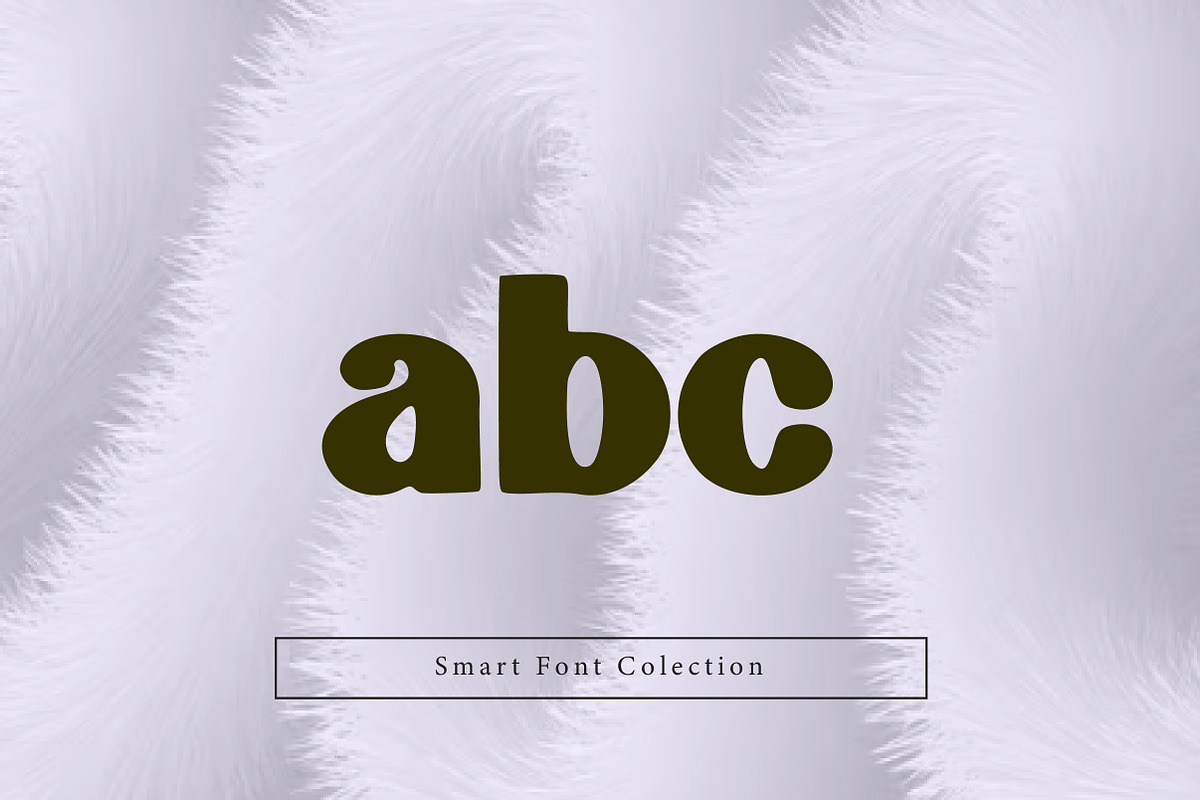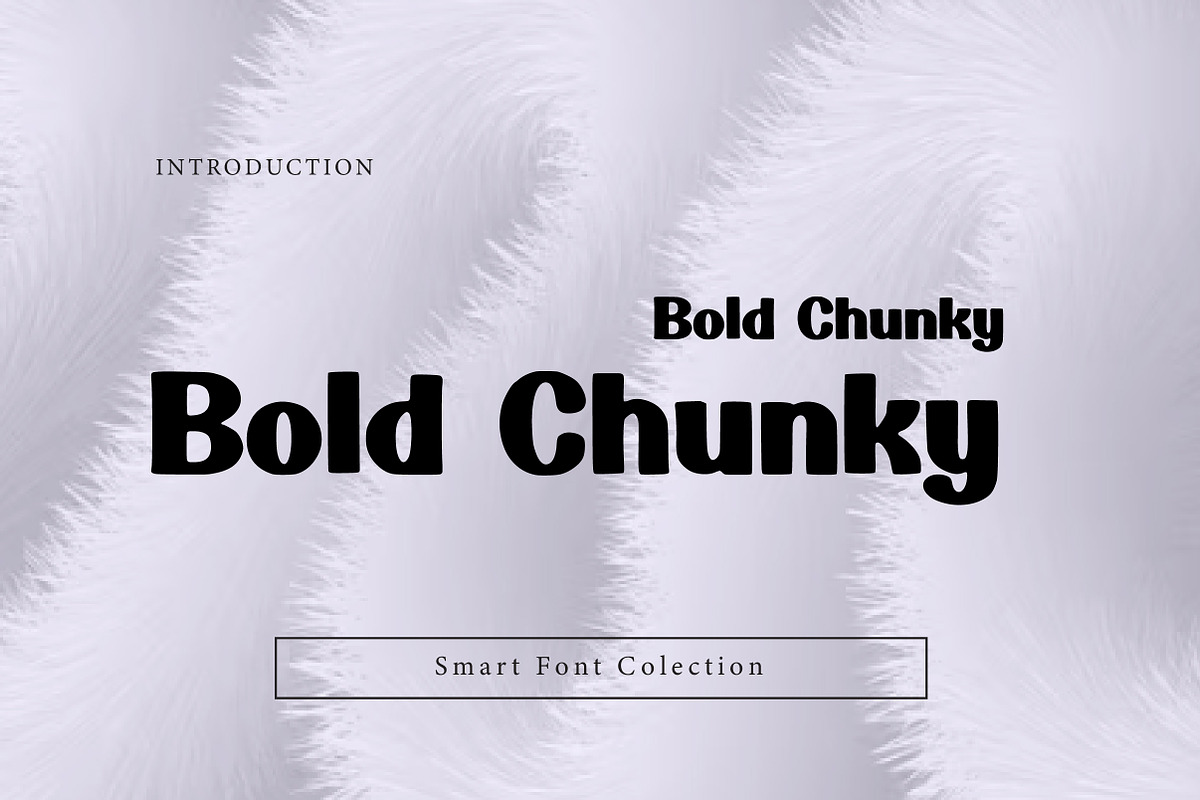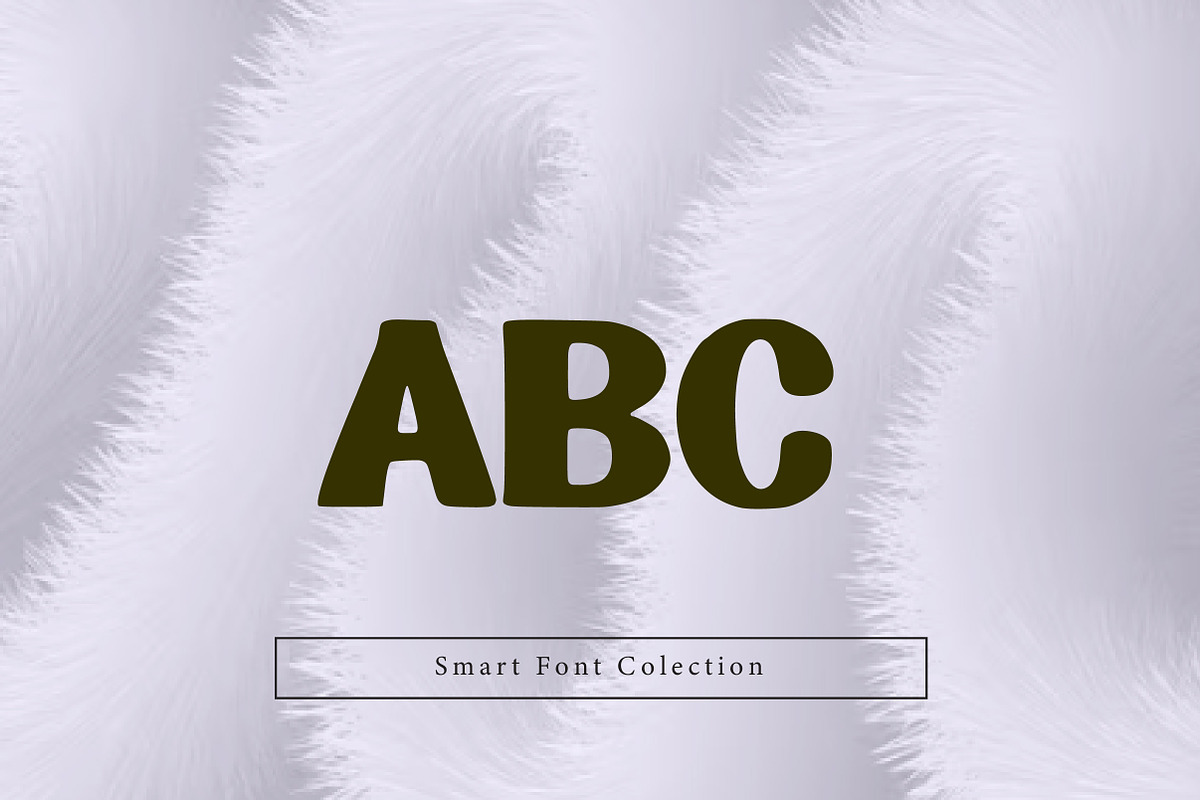
Bold Chunky
Bold Chunky is a thick, playful, and highly impactful display font designed to grab attention instantly. With heavy rounded shapes, strong strokes, and a fun chunky personality, this font is perfect for logos, posters, packaging, kids designs, cartoons, stickers, t-shirts, social media graphics, and bold headlines. Bold Chunky delivers a friendly and energetic vibe that works great for modern branding, playful typography, and creative design projects.